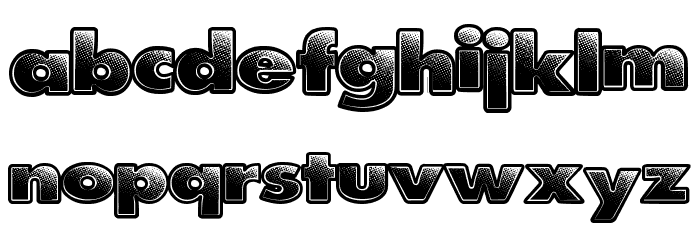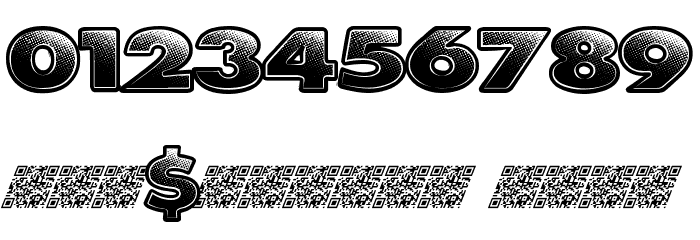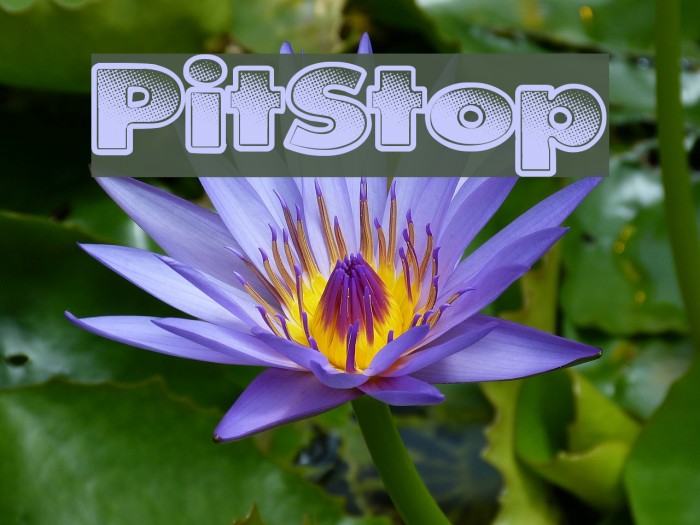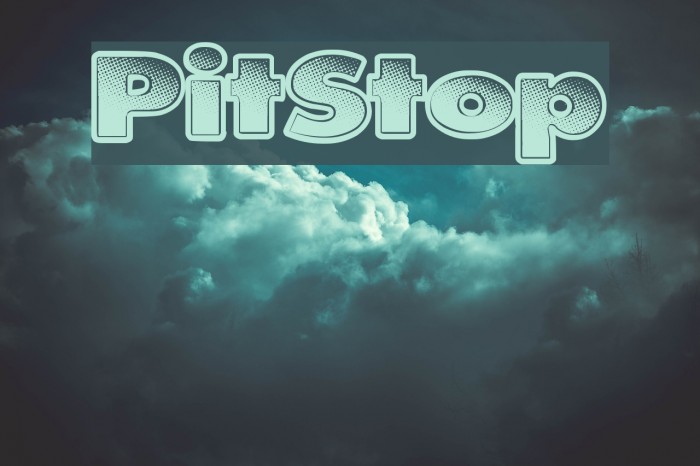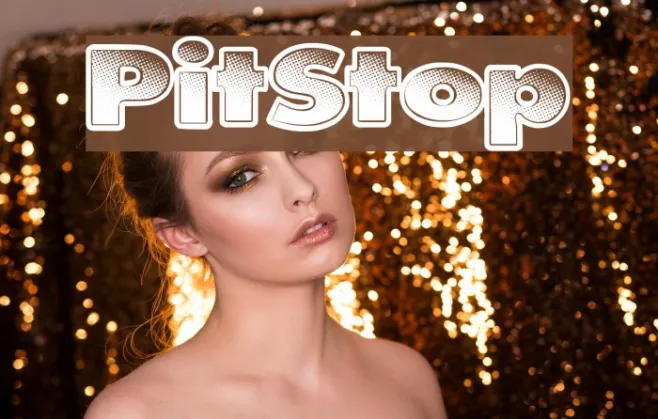
PitStop Font
This font features a bold, three-dimensional style with a distinct halftone pattern that adds depth and texture to each character. The uppercase and lowercase letters maintain a consistent weight, giving the font a cohesive and robust appearance. The numbers and special characters are designed with the same attention to detail, ensuring uniformity across all elements. The font's unique style makes it stand out, with a playful yet strong presence that is ideal for eye-catching designs. Its decorative nature is enhanced by the shadow effect, which adds an extra layer of visual interest. The halftone pattern provides a vintage comic book feel, making it suitable for projects that require a retro or pop art aesthetic.
A bold, three-dimensional font with a halftone pattern and shadow effect, ideal for decorative purposes.
- Proposed Projects: This font is perfect for poster designs, comic book titles, retro-themed advertisements, and any project that requires a bold, eye-catching typeface.
- Overall Style: Vintage, Decorative